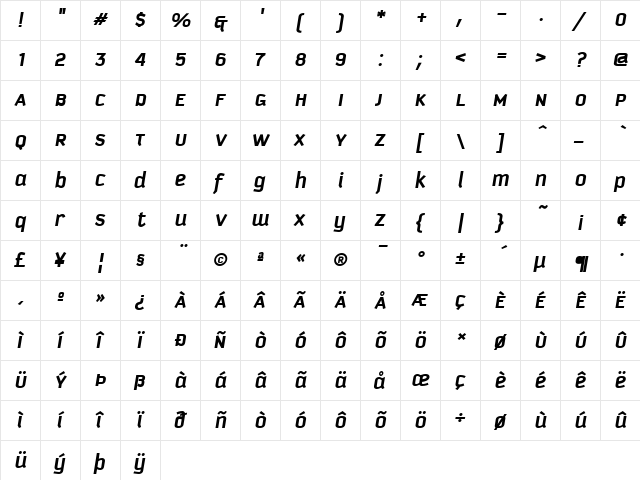
Kautiva Uni Bold Italic Font Preview
| Foundry | SUDTIPOS. Disenada por Alejandro Paul y Alfredo Graziani. Todos los derechos reservados. Buenos Aires, Argentina |
Design Context for Kautiva Uni Typeface
Kautiva Uni takes a measured approach to typography — its balanced proportions and neutral character make it a reliable workhorse for both digital and print work. The slanted form adds forward momentum and visual energy. The heavy weight commands attention and anchors typographic hierarchies.